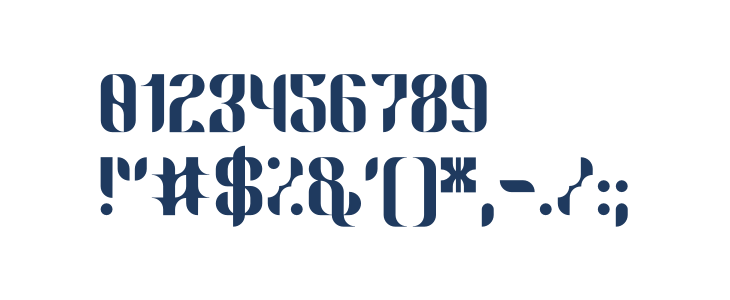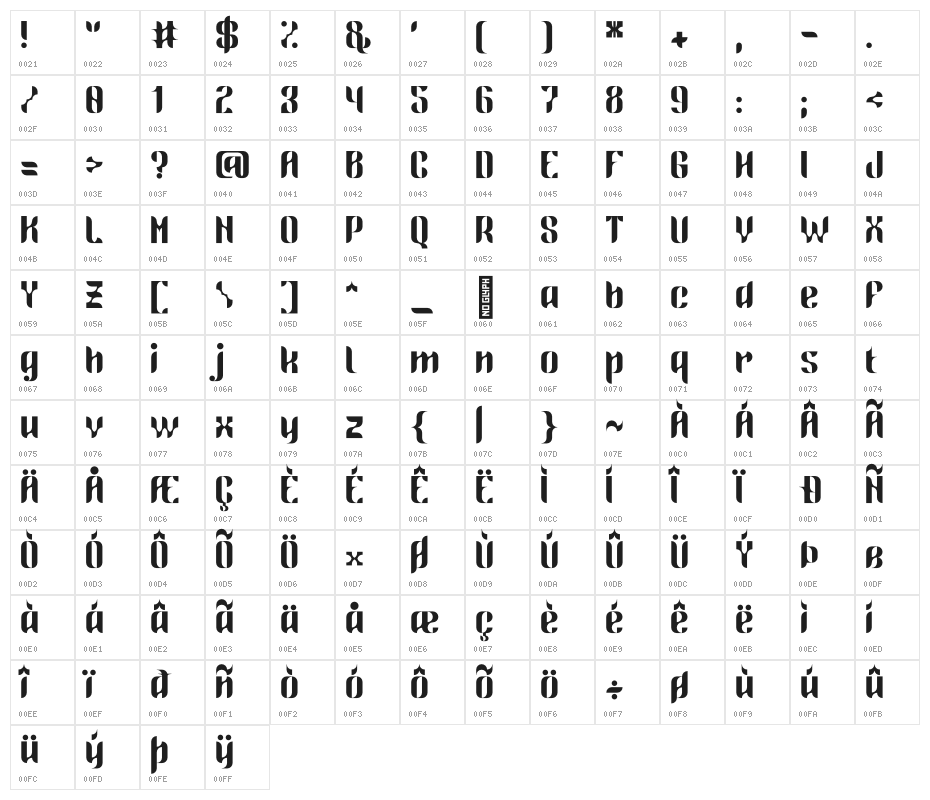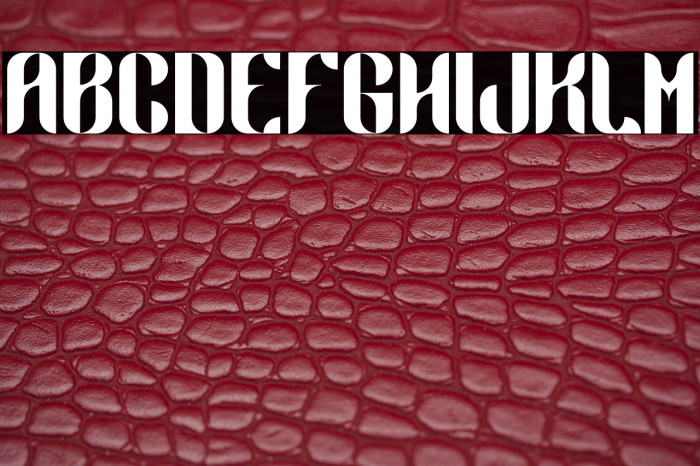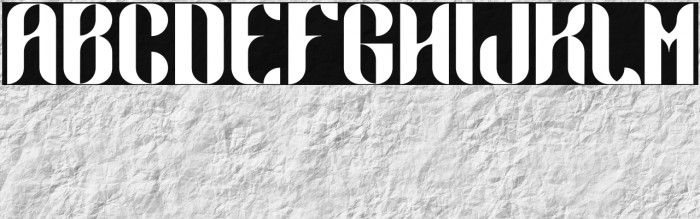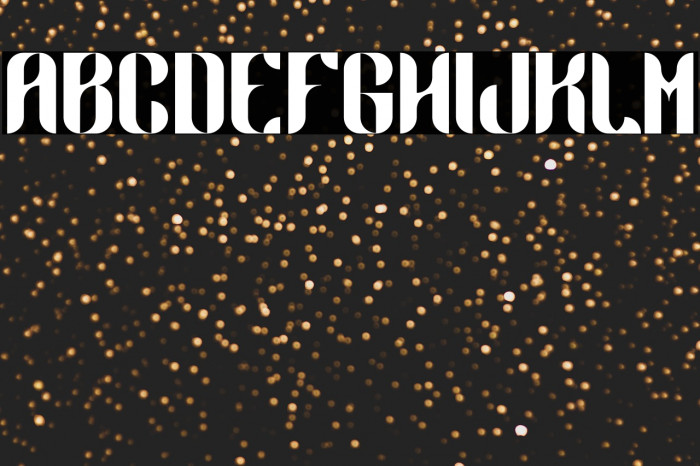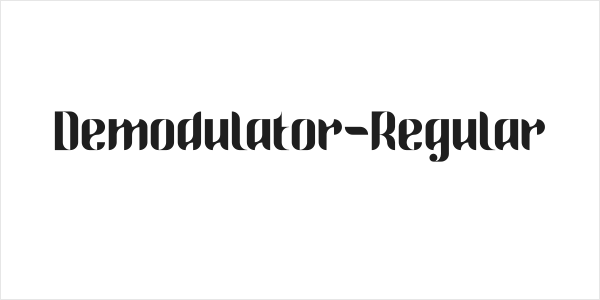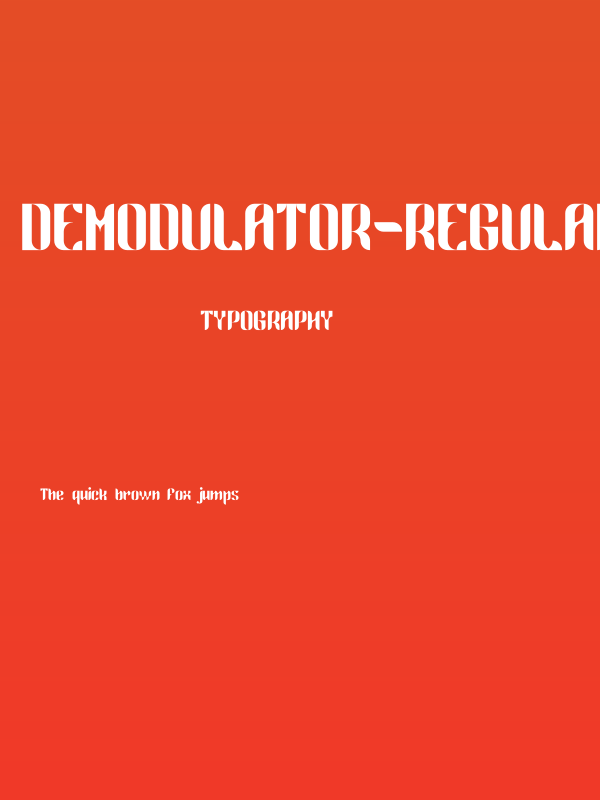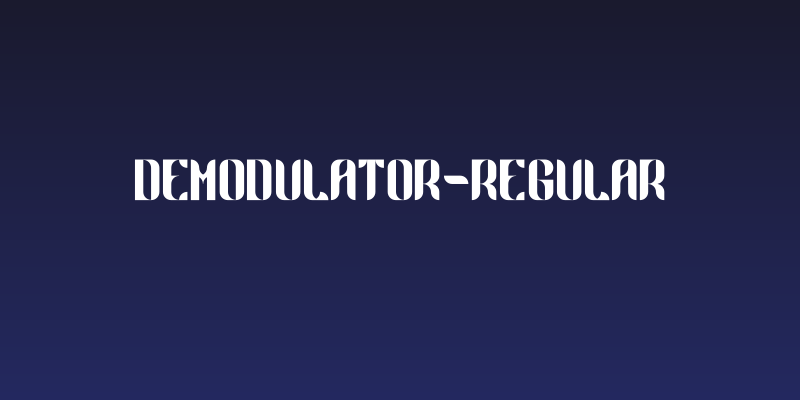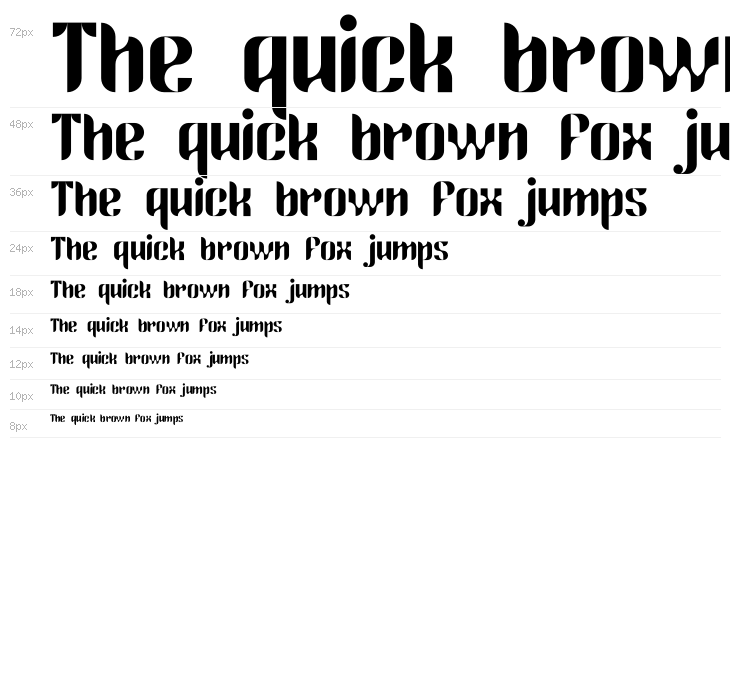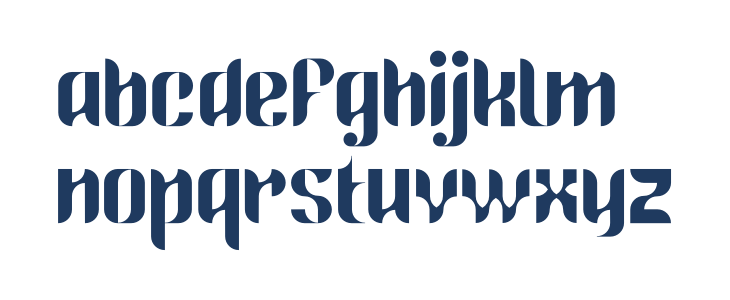
Demodulator-Regular Font
Demodulator-Regular Description
This font features a bold and modern design with a unique blend of geometric and organic shapes. The characters are crafted with high contrast between thick and thin strokes, creating a dynamic and eye-catching appearance. The uppercase letters have a strong, commanding presence, while the lowercase letters maintain a cohesive flow with subtle curves. The numerals are distinct and easily readable, complementing the overall style. Special characters are creatively designed, adding to the font's versatility and appeal.
| Proposed Projects | Ideal for branding, poster design, and modern editorial layouts. |